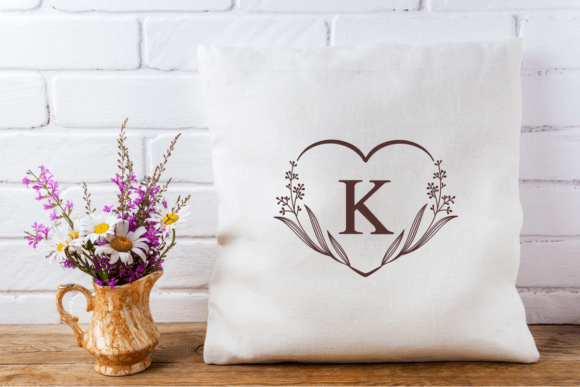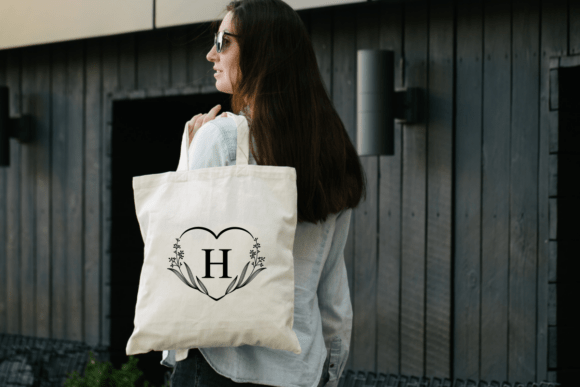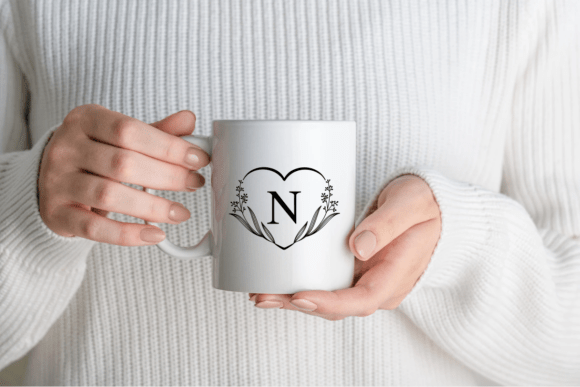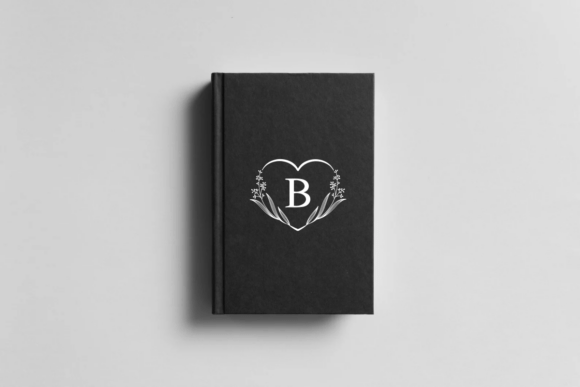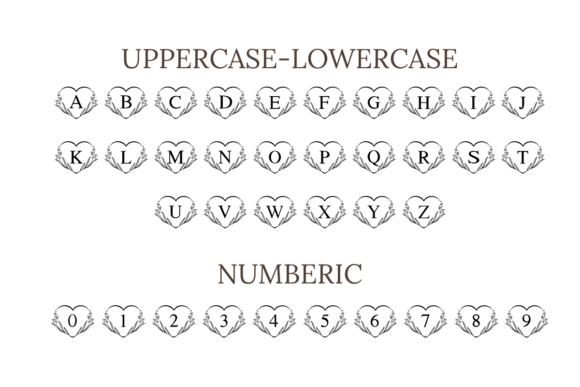
Introducing Floral Heart Font: The Perfect Decorative Touch for Your Designs
Are you a designer, crafter, or DIY enthusiast looking for a unique and charming font to add a personal touch to your projects? Look no further than Floral Heart Font, a beautiful decorative font that’s perfect for a variety of creative endeavors. In this article, we’ll explore the features and uses of Floral Heart Font, and show you how to make the most of this lovely font in your designs.
What is Floral Heart Font?
Floral Heart Font is a decorative font that’s designed to add a touch of elegance and whimsy to your projects. With its intricate floral patterns and heart-shaped designs, this font is perfect for creating beautiful and eye-catching text. Whether you’re making greeting cards, writing in a diary, or creating social media posts, Floral Heart Font is sure to impress.
Uses for Floral Heart Font
Floral Heart Font is a versatile font that can be used for a wide range of projects. Here are some ideas to get you started:
- Journaling and diary writing: Add a personal touch to your journal or diary with Floral Heart Font. Use it to write headings, titles, or even entire entries.
- Greeting cards and invitations: Create beautiful and unique greeting cards and invitations with Floral Heart Font. Perfect for birthdays, weddings, and other special occasions.
- Stationery and paper crafts: Use Floral Heart Font to add a decorative touch to your stationery, scrapbooking, and other paper crafts.
- Social media posts: Add a touch of elegance to your social media posts with Floral Heart Font. Perfect for Instagram, Facebook, and other platforms.
- Banners and signs: Create eye-catching banners and signs with Floral Heart Font. Perfect for events, parties, and other gatherings.
- Mugs, shirts, and other products: Use Floral Heart Font to create custom mugs, shirts, and other products. Perfect for gifts or personal use.
Tips for Using Floral Heart Font
Here are some tips for getting the most out of Floral Heart Font:
- Experiment with different sizes and colors: Floral Heart Font looks great in a variety of sizes and colors. Experiment with different combinations to find the one that works best for your project.
- Use it sparingly: While Floral Heart Font is beautiful, it can be a bit overwhelming if used too much. Use it sparingly to add a touch of elegance to your project.
- Pair it with other fonts: Floral Heart Font pairs well with other fonts, such as serif and sans-serif fonts. Experiment with different combinations to find the one that works best for your project.
Why Choose Floral Heart Font?
So why choose Floral Heart Font for your projects? Here are just a few reasons:
- Unique and eye-catching: Floral Heart Font is a unique and eye-catching font that’s sure to impress.
- Versatile: Floral Heart Font can be used for a wide range of projects, from journaling and diary writing to social media posts and product design.
- Elegant and whimsical: Floral Heart Font has an elegant and whimsical feel that’s perfect for adding a personal touch to your projects.
Floral Heart Font is a beautiful and versatile decorative font that’s perfect for designers, crafters, and DIY enthusiasts. With its intricate floral patterns and heart-shaped designs, this font is sure to add a touch of elegance and whimsy to your projects. Whether you’re making greeting cards, writing in a diary, or creating social media posts, Floral Heart Font is a great choice. So why not give it a try and see what amazing projects you can create?